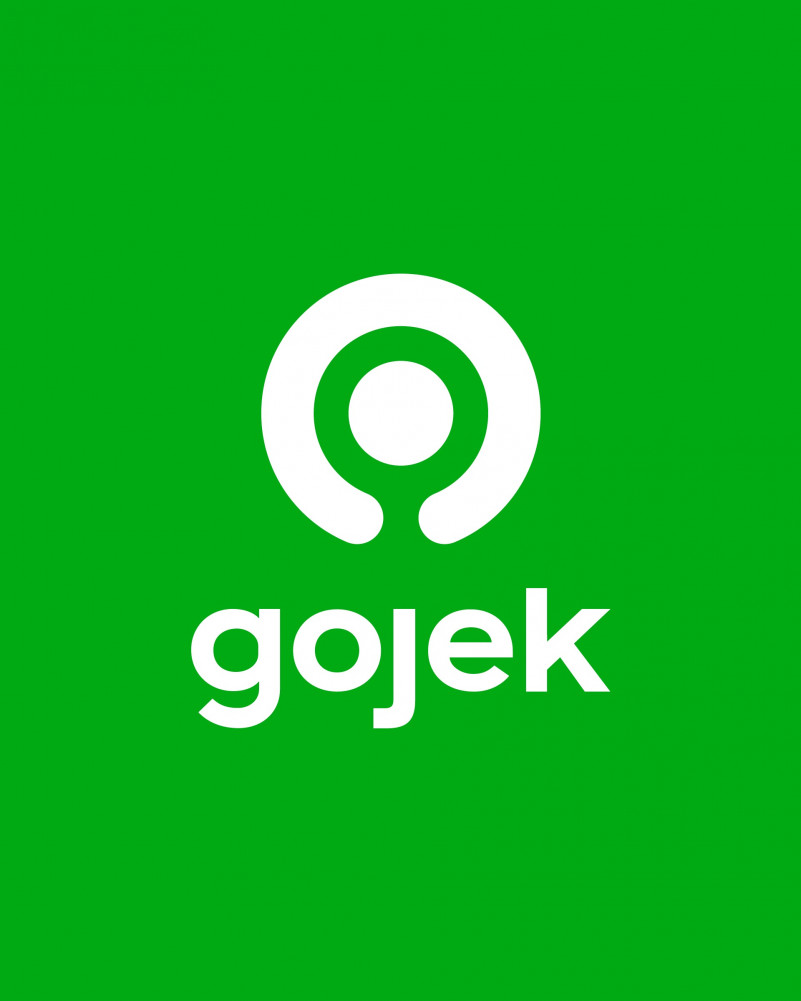
Gojek Logo Font
Gojek (stylized in all lower case and stylized j as goȷek, formerly styled as GO-JEK) is an Indonesian on-demand multi-service platform and digital payment technology group based in Jakarta. Gojek was first established in Indonesia in 2010 as a call center to connect consumers to courier delivery and two-wheeled ride-hailing services. Gojek launched its application in 2015 with only four services: GoRide, GoSend, GoShop, and GoFood. Valued at US$10 billion today, Gojek has transformed into a super app, providing more than 20 services.
WHAT FONT WAS USED IN LOGO?
“Maison Neue Extended Bold ” is the font used in Gojek logo.